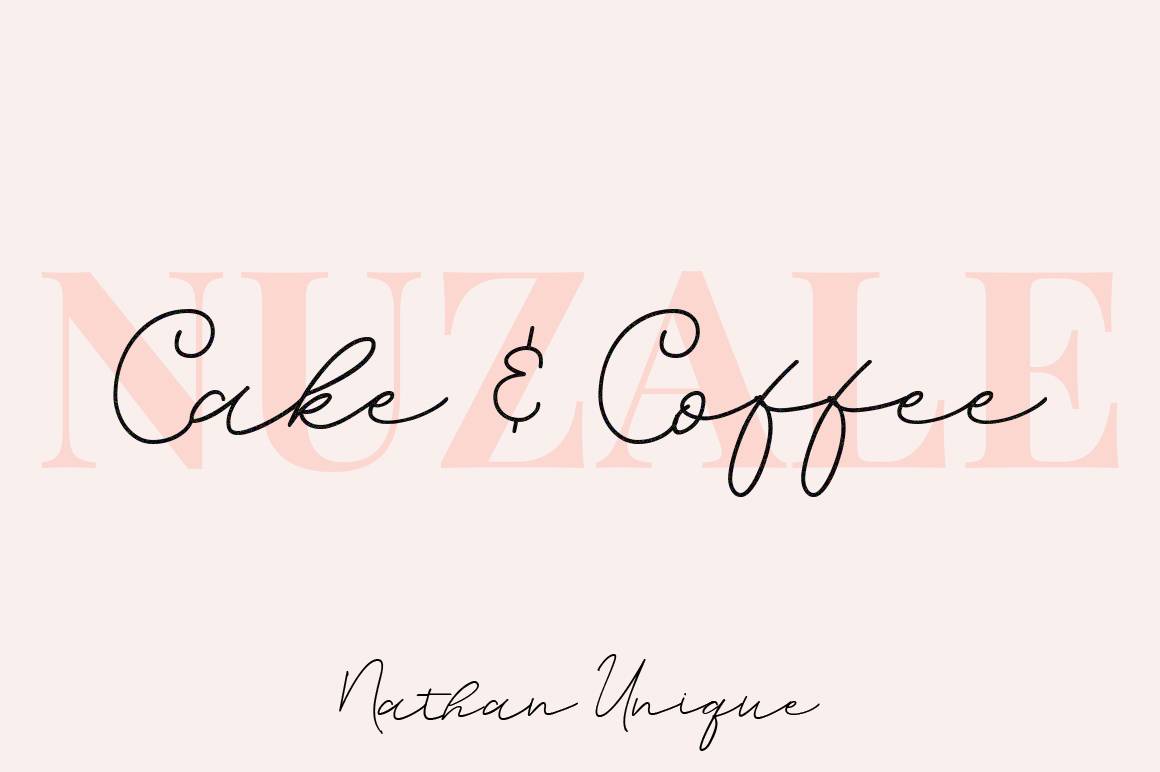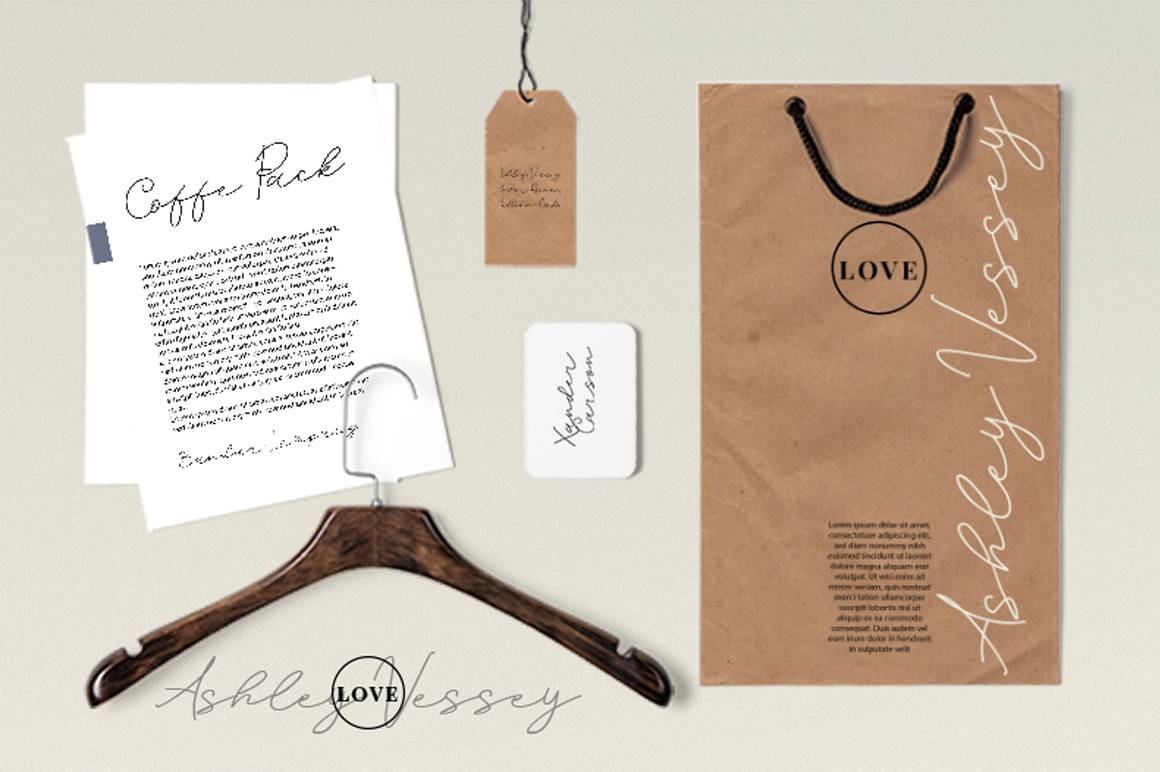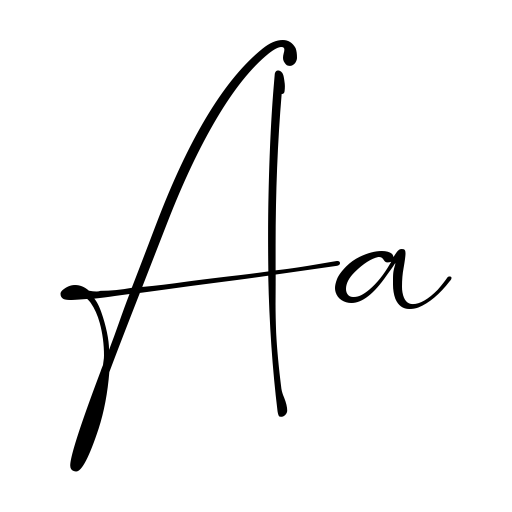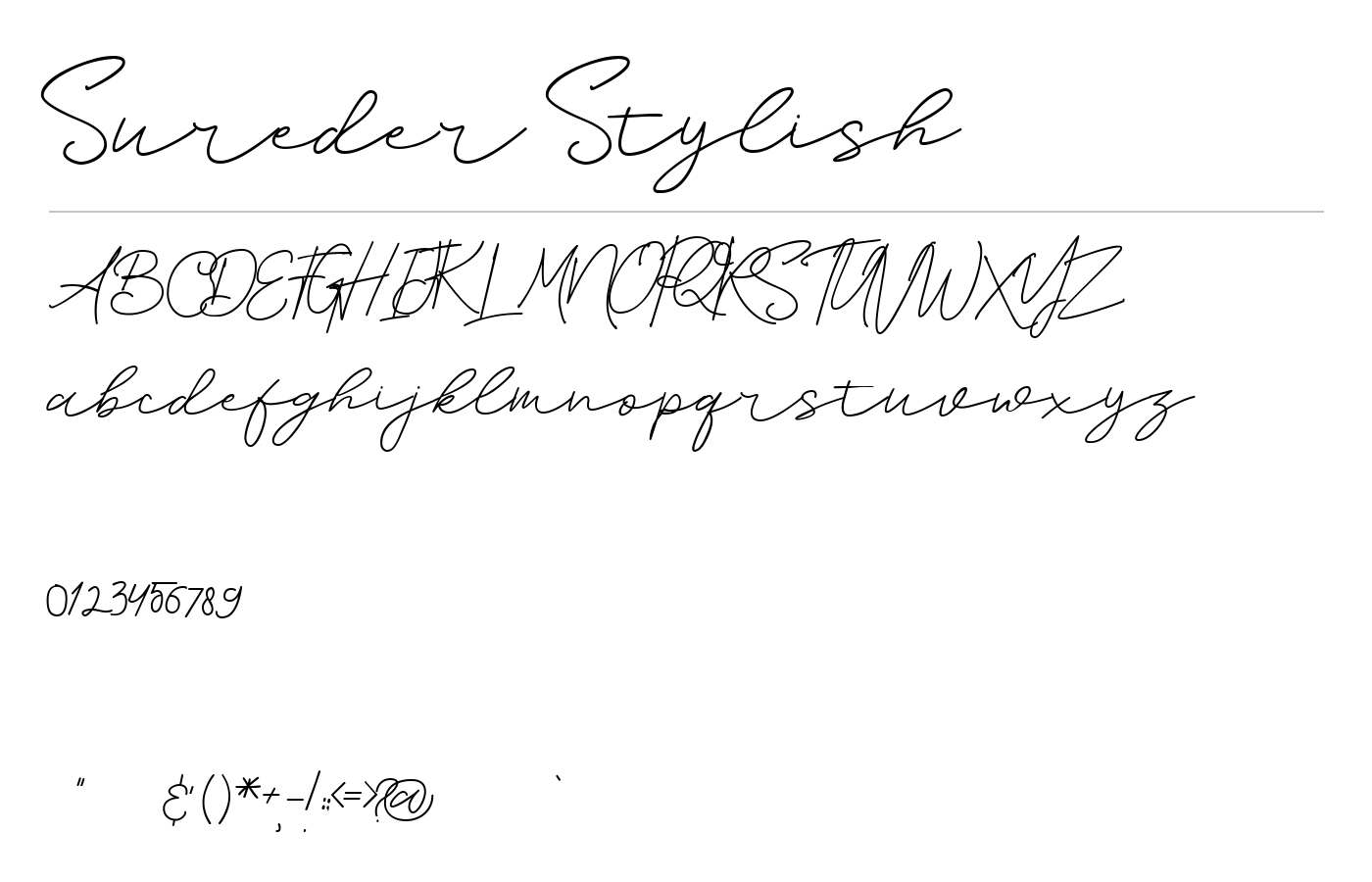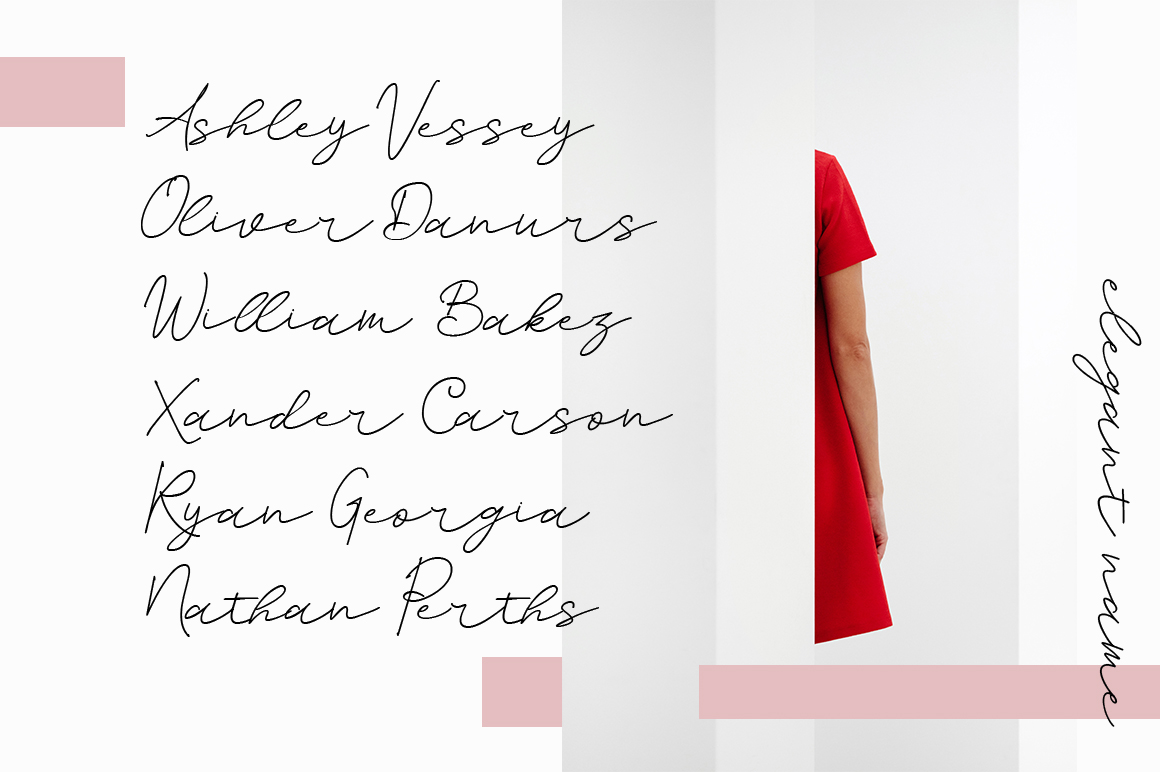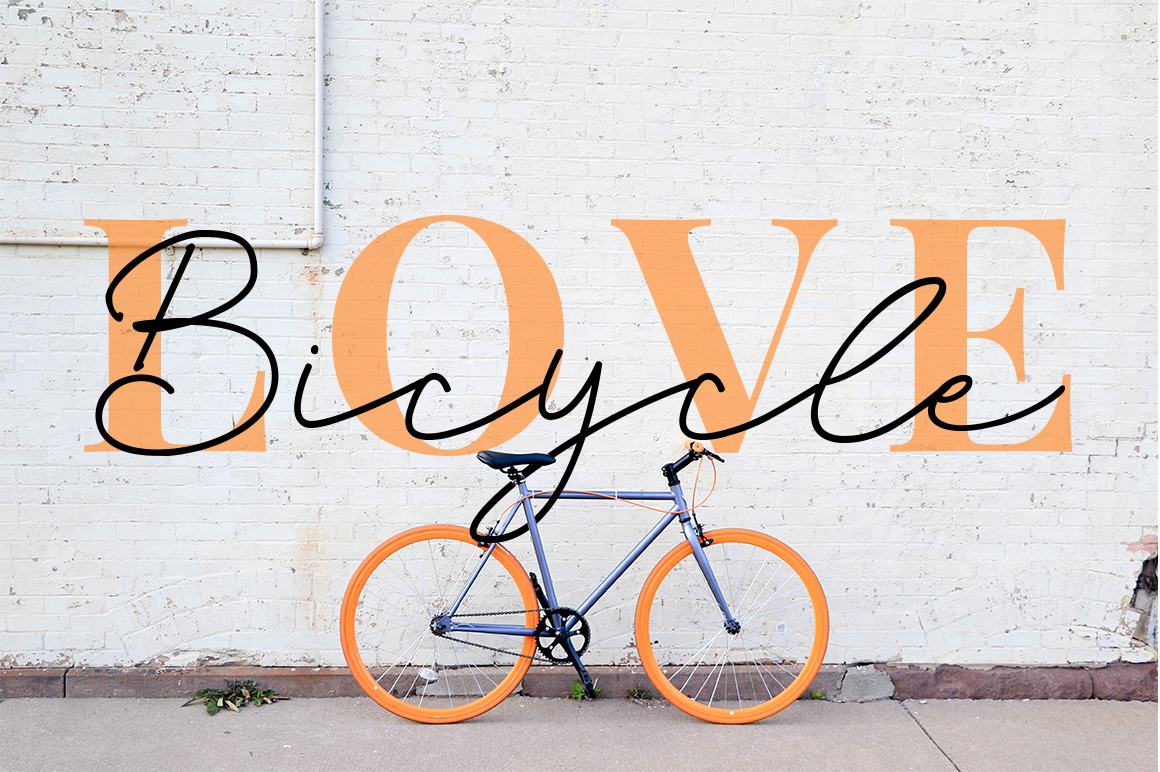
Sureder Stylish Script is a delicate and elegant handwritten font featuring thin, flowing lines with a natural, cursive style. Its tall x-height and airy spacing give it a graceful, refined feel, making it perfect for sophisticated branding, wedding invitations, and feminine design projects that require a personal, stylish touch.
Sureder Stylish Script Font
About Sureder Stylish Script Font
| Font family | Sureder Stylish Script Font |
| Release date | 2018-04-02 |
| Designer | Haris Purnama putr |